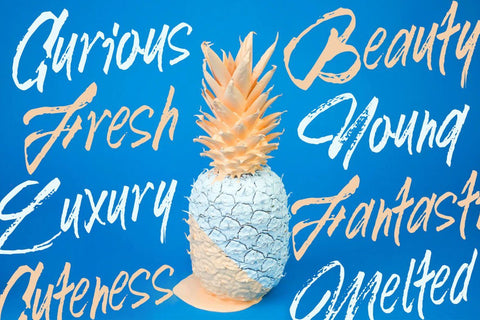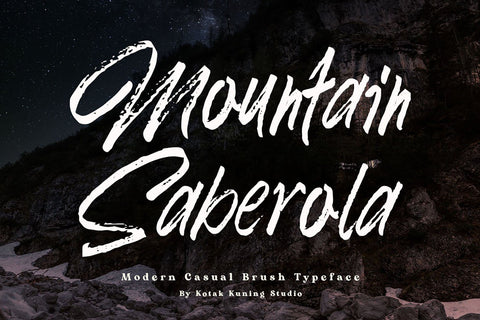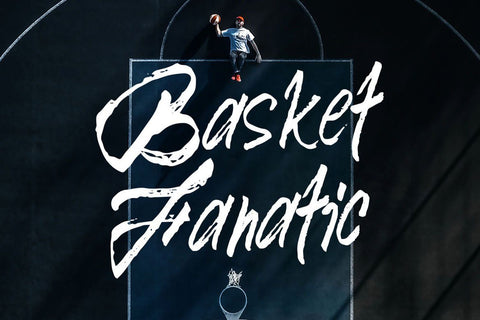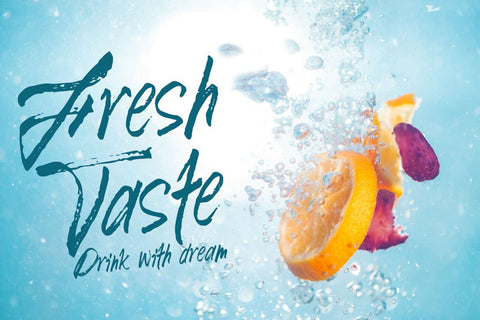
Mountain Saberola Brush Font
Mountain Saberola is a casual display font, created by using a dry brush pen. This font is the perfect fit for all of your logos, branding, social media, and crafty DIY projects.
This font is suitable to use as a logotype, product designs, label, watermark, social media posts, apparel, invitation, signboard, sports club, motor/car, special events or anything that need handwriting taste.